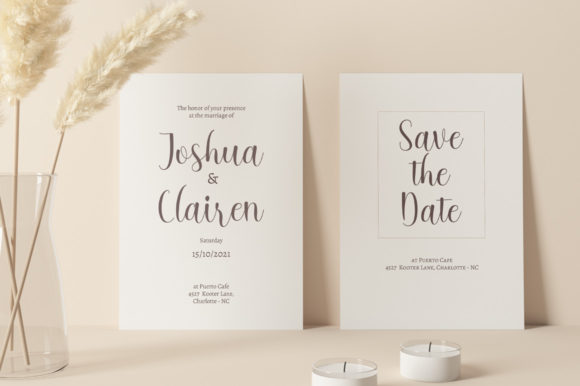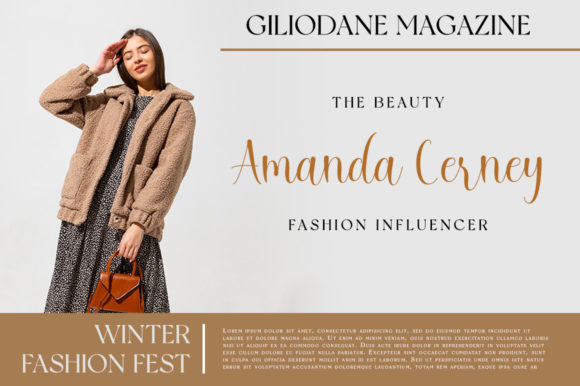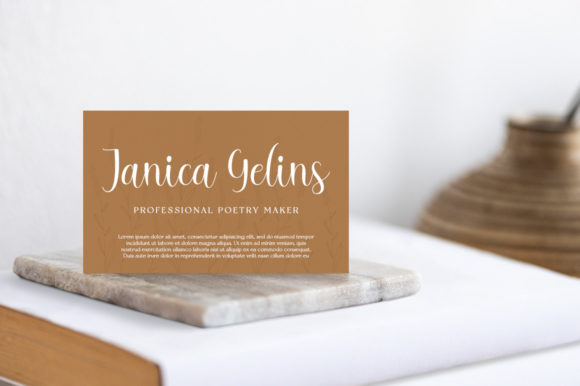
Introduction to Rellaine Font
Have you ever been working on a creative project, pouring your heart and soul into the details, only to be stopped in your tracks by the perfect font? That’s exactly what happened to me when I stumbled upon the Rellaine Font. Its elegant, classy, and modern look instantly caught my attention, and I knew I had to learn more.
As a designer, finding the right font can be a game-changer. It can elevate your design from good to great, and make your project truly stand out. That’s why I’m excited to share with you the beauty of the Rellaine Font, a high-quality design resource that’s perfect for a wide range of creative projects.
Whether you’re working on a logo, invitation, or social media post, the Rellaine Font is sure to impress. With its gorgeous typographic elements and transparent background, it’s a free download that’s perfect for designers of all levels.
Key Features of Rellaine Font
- Unique, handcrafted font with a transparent background, ideal for digital artwork and designs.
- Includes a wide range of characters, including Latin, Cyrillic, and Greek alphabets, making it a versatile design resource.
- Designed to be easily customizable, allowing designers to experiment with different styles and effects.
- Perfect for designers, artists, and creatives working on various projects, from branding and advertising to digital art and typography.
Honest Review: Rellaine Font
I recently stumbled upon the Rellaine Font while searching for high-quality design resources for a creative project. The font caught my eye due to its elegant and modern aesthetic. I decided to download it for free and test it out in various design scenarios.
Here are some features that work well for the Rellaine Font:
- High-quality design with a unique flair ✨
- Includes a variety of weights and styles, allowing for versatility in creative projects
- Features a transparent background, making it easy to customize and integrate into designs
- Limited language support, which may be a concern for designers working with non-English clients ⚠️
Overall, I’m impressed with the Rellaine Font’s design quality and versatility. While it has some limitations, it’s still a valuable resource for designers working on creative projects. I’d recommend it to anyone looking for a modern and elegant font for their designs.
Tips for Getting the Most Out of Rellaine Font
Use the Rellaine Font on a transparent background to create a modern and sleek design. Experiment with different font sizes and styles to add visual interest to your project.
The Rellaine Font is ideal for creative projects such as logos, business cards, and social media graphics. Its high-quality design makes it perfect for presentations, documents, and websites.
Does the Rellaine Font have a transparent background, and how do I use it in my design?
Yes, the Rellaine Font has a transparent background, making it easy to use in various design scenarios. To use the font with a transparent background, simply import the font file into your design software and set the background color to transparent. You can then use the font in combination with other design elements, such as images or shapes, to create a unique and eye-catching design.